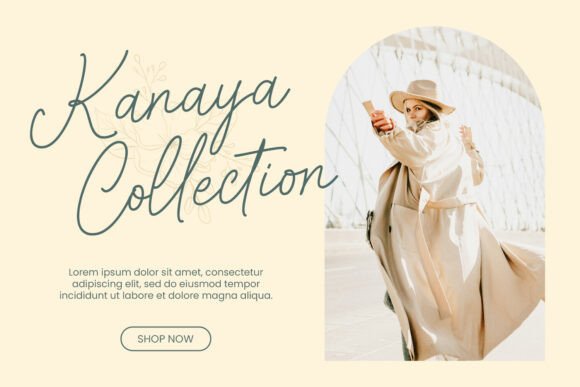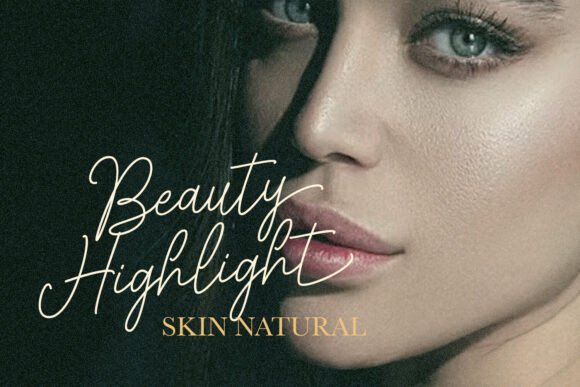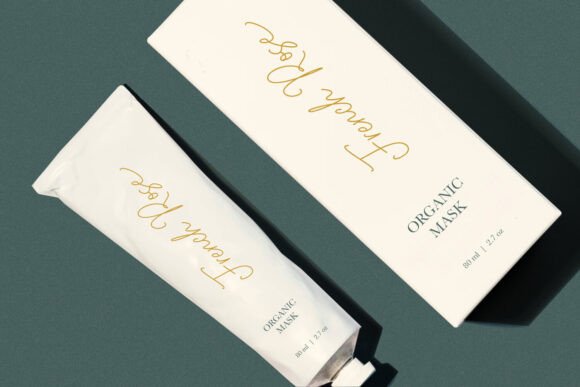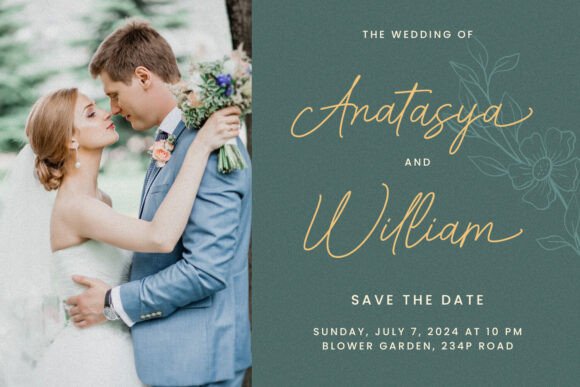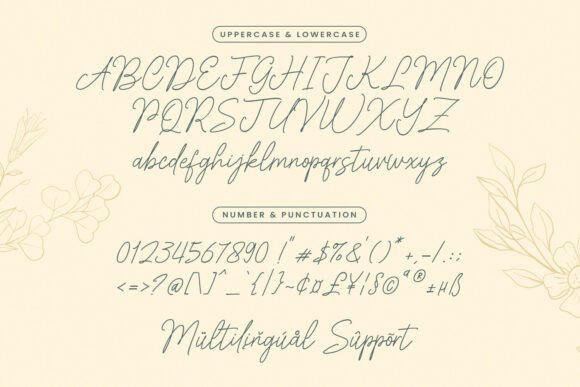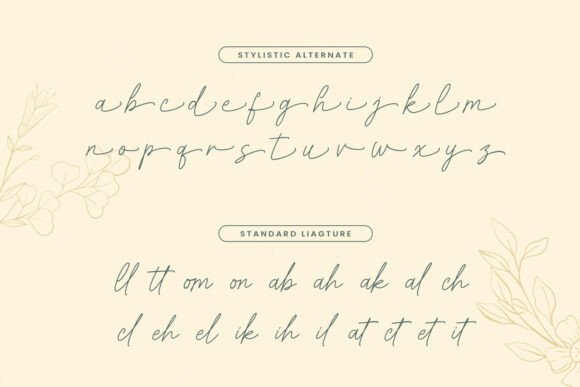
Unveiling Amirallia Font: A Masterful Blend of Elegance and Flair
In the realm of typography, few fonts manage to strike a balance between elegance and personality. Amirallia Font, a distinctive monoline script font, is one such gem that effortlessly merges the crisp elegance associated with monoline fonts and the creative flair inherent to a handwritten script. This article aims to explore the nuances of Amirallia Font, its features, and how it can elevate your design projects.
The Essence of Amirallia Font
Amirallia Font stands out with its unique monoline script style, which is both elegant and full of character. The monoline aspect gives it a clean, sophisticated look, while the script elements infuse it with a touch of personalization and warmth. This blend makes Amirallia versatile, suitable for a wide range of design applications, from branding and advertising to packaging and digital media.
Key Features of Amirallia Font
- PUA-Encoded for Easy Access: Amirallia is PUA-encoded, which means that all glyphs and elegant swashes are easily accessible. This feature allows designers to work seamlessly, without the hassle of glyph mapping.
- Comprehensive Character Set: The font comes fully featured with uppercase and lowercase letters, numbers, symbols, and punctuations. This extensive character set ensures that designers have all the tools they need to create cohesive and professional designs.
- Stylistic Alternate Discretionary Ligatures: One of the standout features of Amirallia is its set of stylistic alternate discretionary ligatures. These ligatures offer designers the flexibility to add a personal touch to their work, making each design unique. Moreover, this feature supports multiple languages, enhancing the font’s versatility.
Applications of Amirallia Font
Amirallia’s unique blend of elegance and personality makes it suitable for various design projects. Here are some applications where Amirallia can shine:
- Branding and Logotypes: The distinctive style of Amirallia makes it an excellent choice for creating memorable brand identities and logotypes that stand out.
- Advertising and Marketing Materials: Whether it’s for print or digital ads, Amirallia’s elegance and flair can add a sophisticated touch to marketing materials, capturing the audience’s attention.
- Packaging Design: For product packaging, Amirallia can add a touch of luxury and sophistication, making products stand out on the shelves.
- Digital Media: In digital media, such as website headers, social media graphics, and email newsletters, Amirallia can add a personal and professional touch.
Tips for Using Amirallia Font Effectively
To make the most of Amirallia Font, consider the following tips:
- Experiment with Ligatures: Take advantage of Amirallia’s stylistic alternate discretionary ligatures to add uniqueness to your designs.
- Combine with Other Fonts: Pair Amirallia with complementary fonts to create visual interest and hierarchy in your designs.
- Adjust Font Sizes and Weights: Play with different sizes and weights of Amirallia to create emphasis and add depth to your designs.
Amirallia Font is a remarkable addition to any designer’s toolkit, offering a perfect blend of elegance, personality, and versatility. Its monoline script style, coupled with comprehensive features like PUA encoding and stylistic ligatures, makes it an excellent choice for a wide range of design projects. By incorporating Amirallia into your design repertoire, you can create stunning, professional-grade work that stands out in a crowded digital landscape.
Whether you’re a seasoned designer or a crafting enthusiast, Amirallia Font invites you to explore new dimensions of creativity and expression. So, dive in, and let Amirallia transform your designs with its unique charm and sophistication.